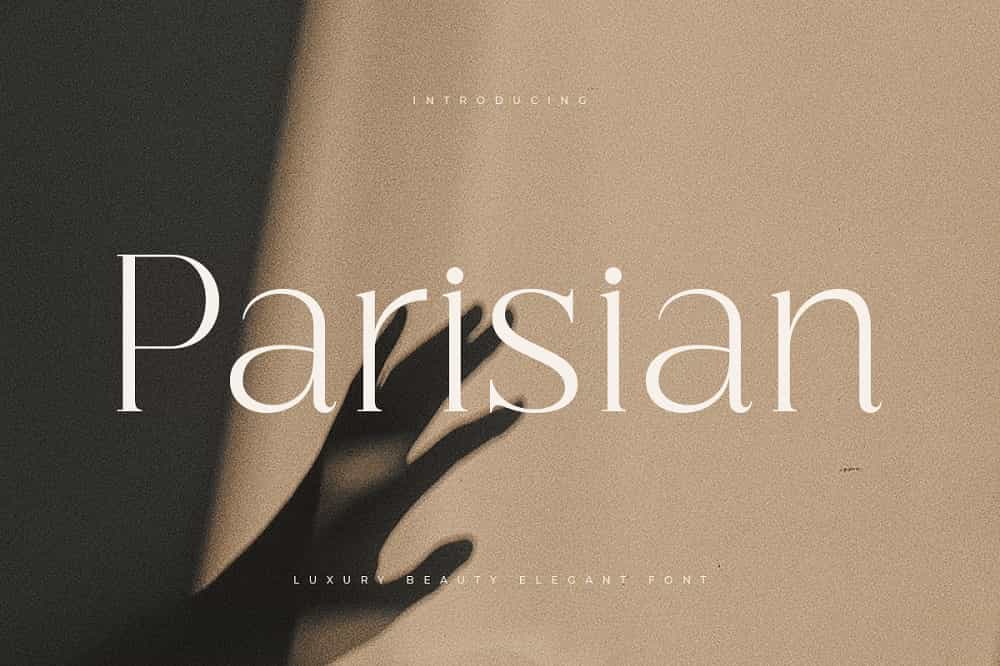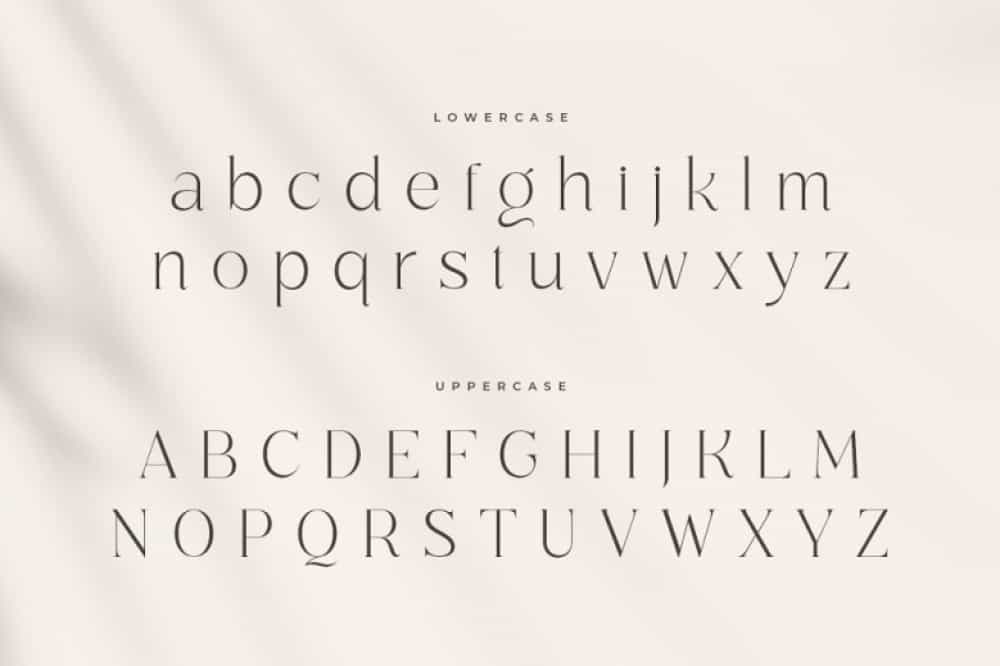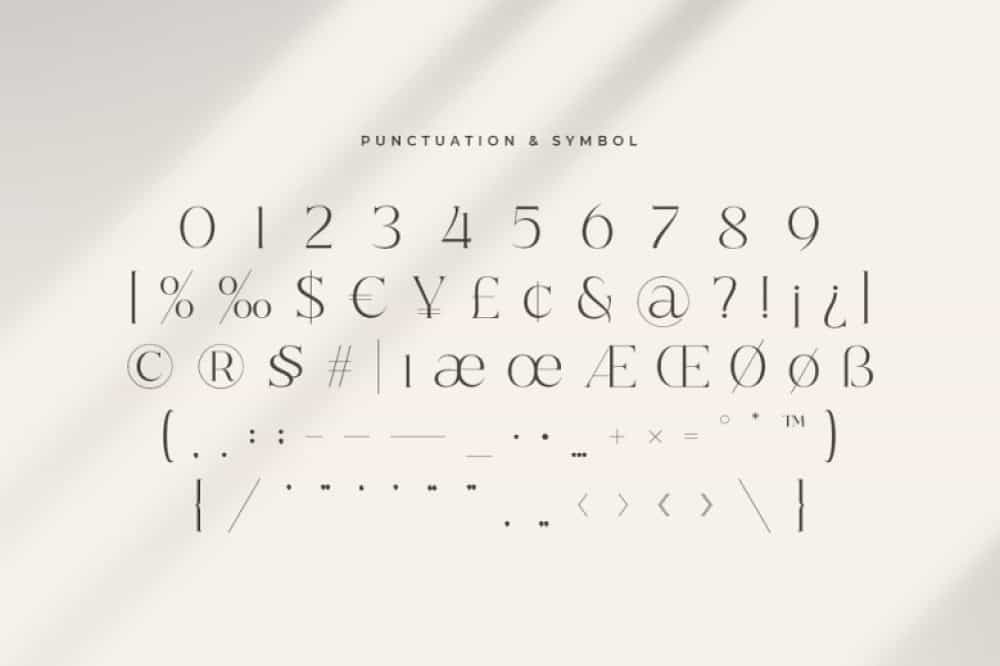
Parisian is a luxurious beauty serif font that we have made to meet the criteria of elegant branding purposes with additional ligature and alternates in a different form that will enhance the worth of your brand. It is always good to bring such a solution to the notice of a designer or a product owner who is in search of a way to give their design a classy and modern look.